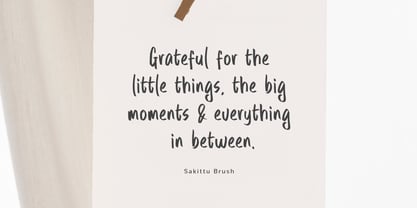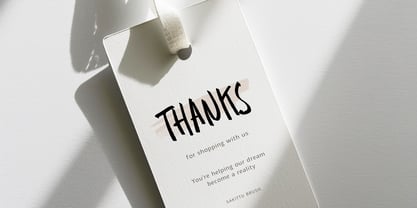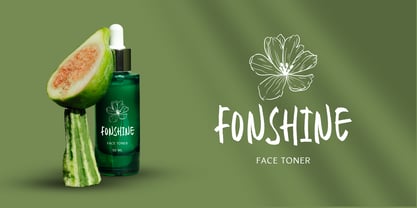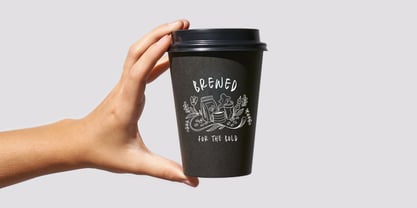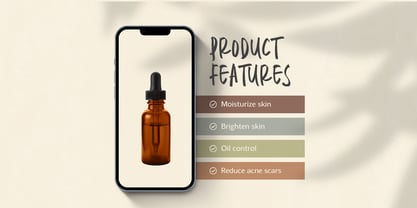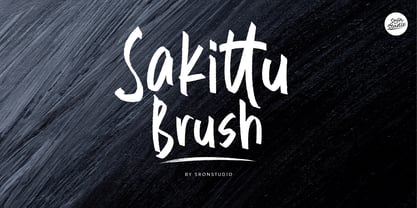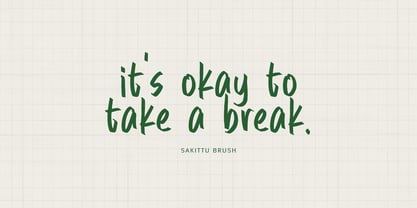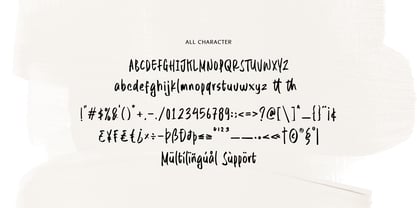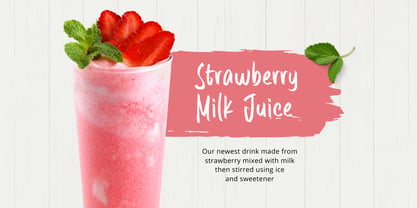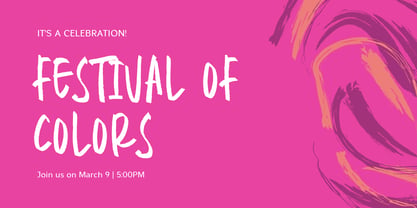
Sakittu Brush
by Sronstudio
The Sakittu Brush Font Family was designed by Muhamad Yusron Billah and published by Sronstudio. Sakittu Brush contains 1 styles. More about this family
Sakittu Brush is a bold and expressive brush script font that brings energy and personality to your designs. With its dynamic strokes and natural flow, this font is perfect for logos, posters, branding, packaging, and any project that needs a handcrafted and artistic touch. Sakittu Brush captures the essence of brush lettering, adding a raw and authentic feel to your typography.
- Uppercase & lowercase letters
- Numerals & punctuation
- Ligatures
- Multilingual support
Designers: Muhamad Yusron Billah
Foundry: Sronstudio